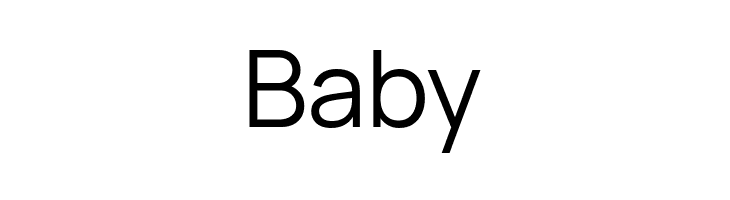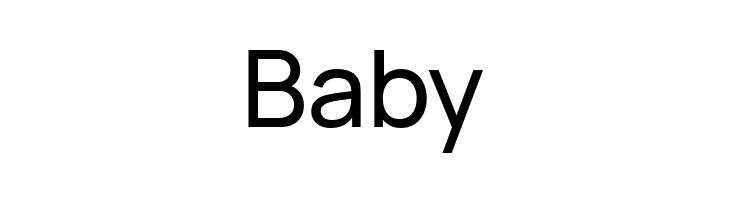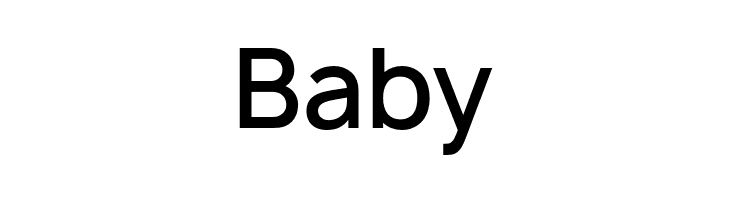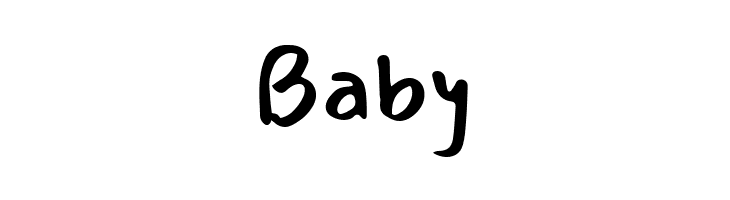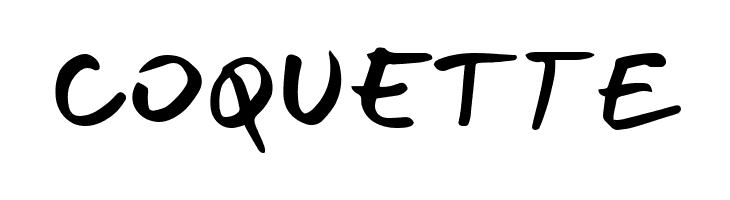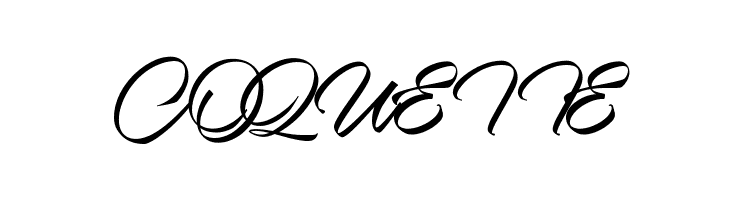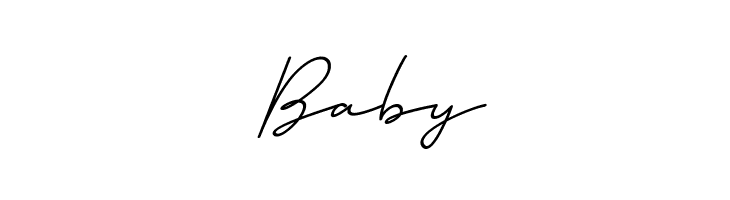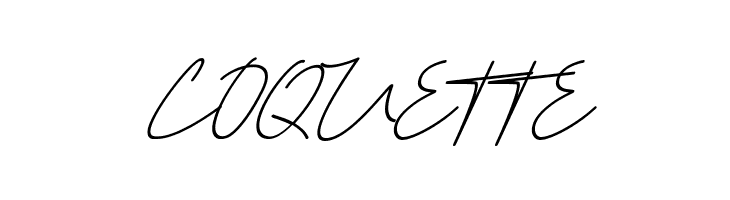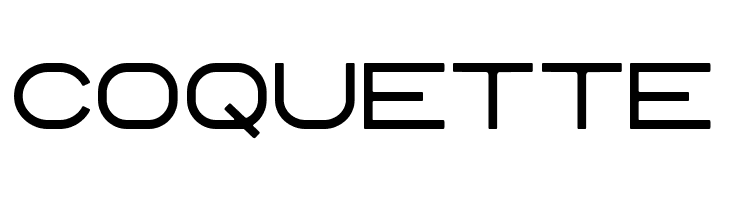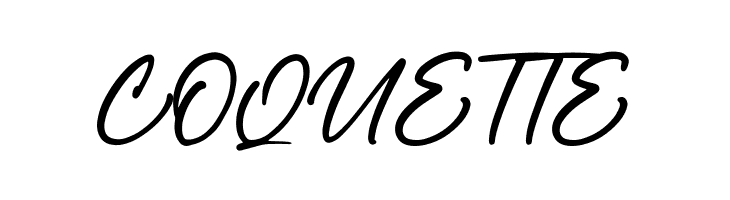
A modern, sans-serif typeface with clean lines and geometric influences.
A modern, geometric sans-serif typeface with balanced stroke widths and high legibility.
A modern, geometric sans-serif font with clean lines and excellent legibility.
A modern, geometric sans-serif font with a clean and professional appearance.
A modern, clean sans-serif font with balanced geometric and humanist elements.
A playful, casual handwritten font with smooth curves and a natural feel.
A flowing, cursive script font with elegant, connected letters.
A dynamic brush script font with fluid, expressive strokes.
A bold, gothic decorative font with sharp, angular edges and intricate patterns.
An abstract collection of human face illustrations, not a traditional font.